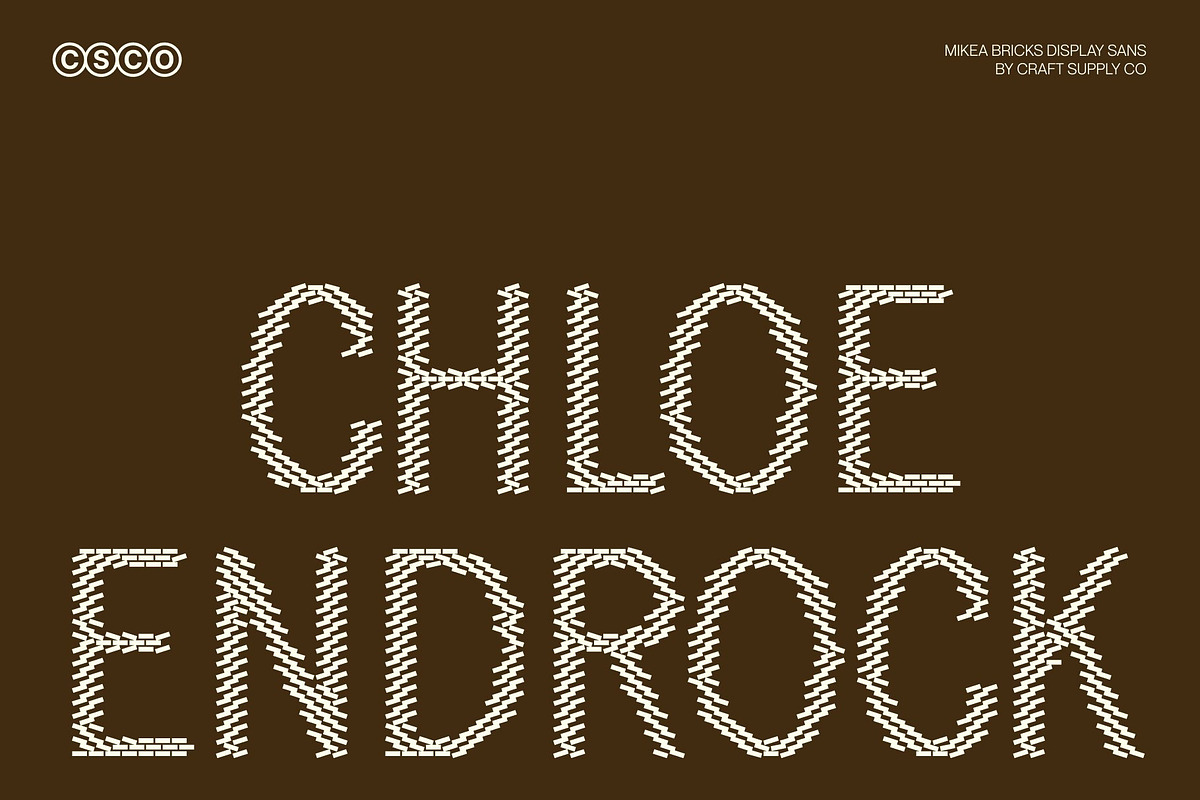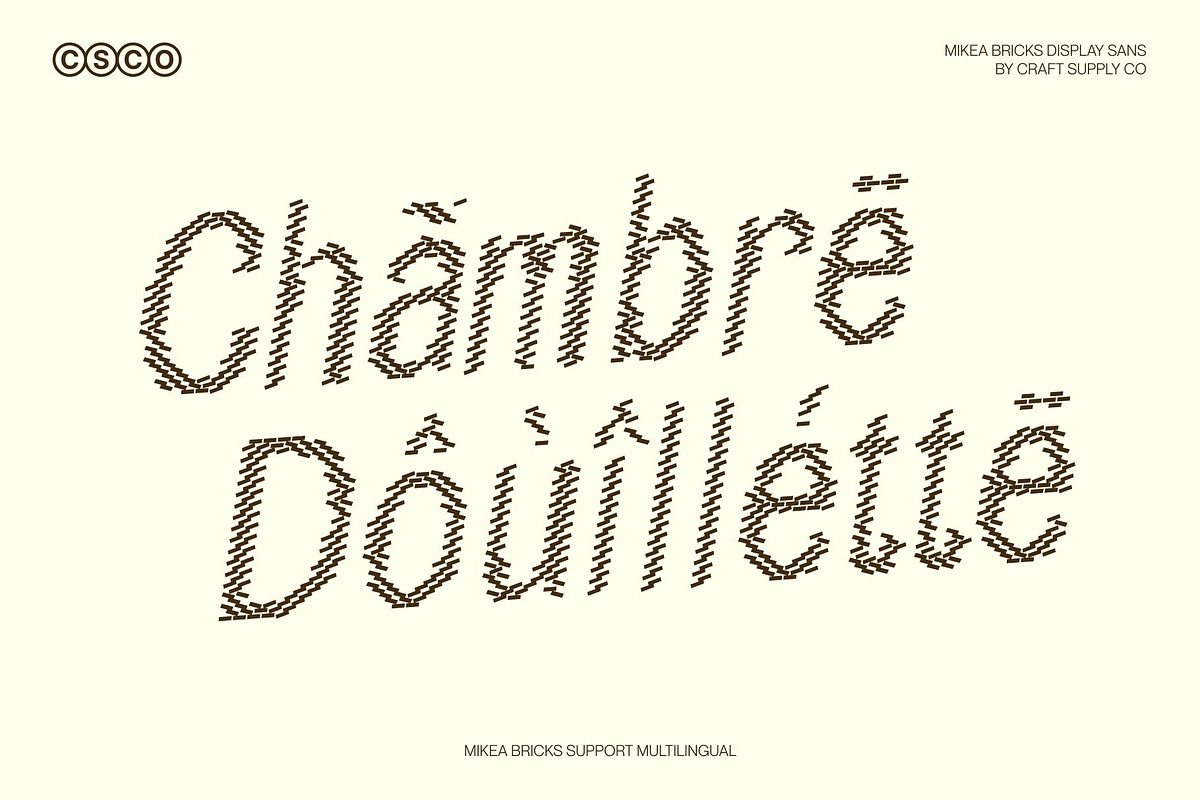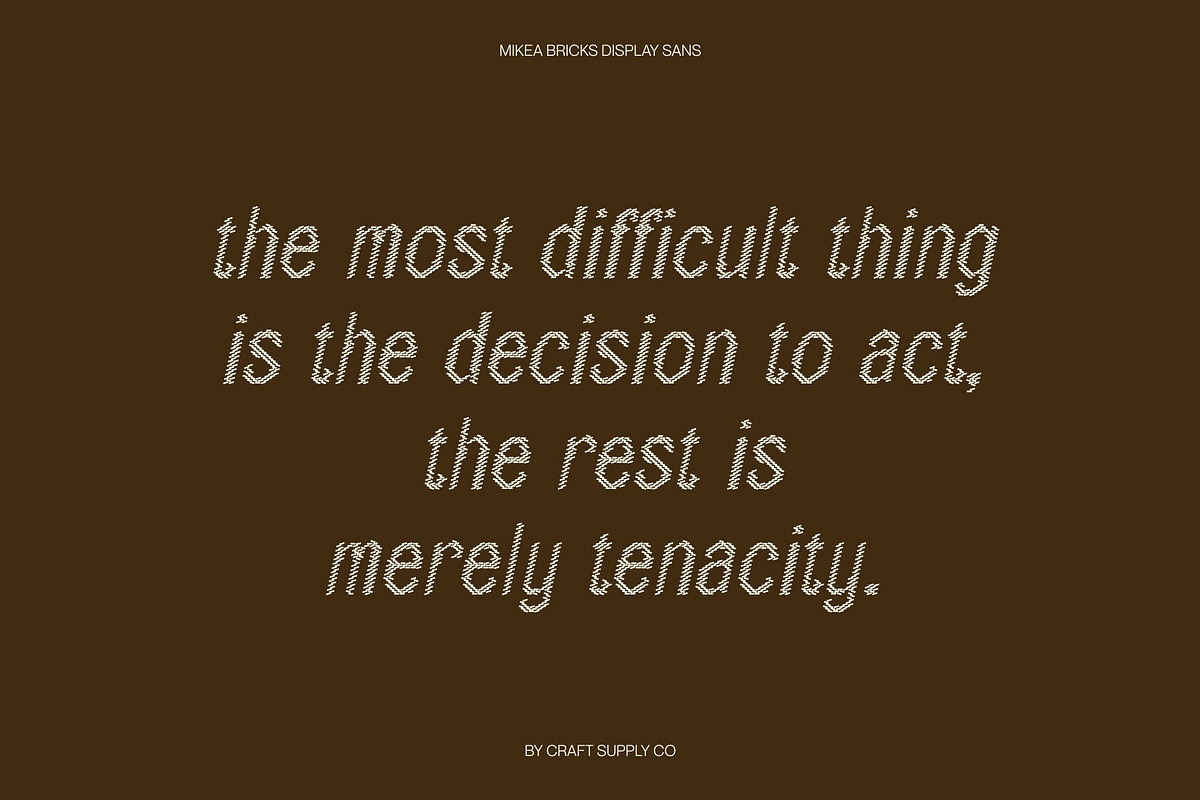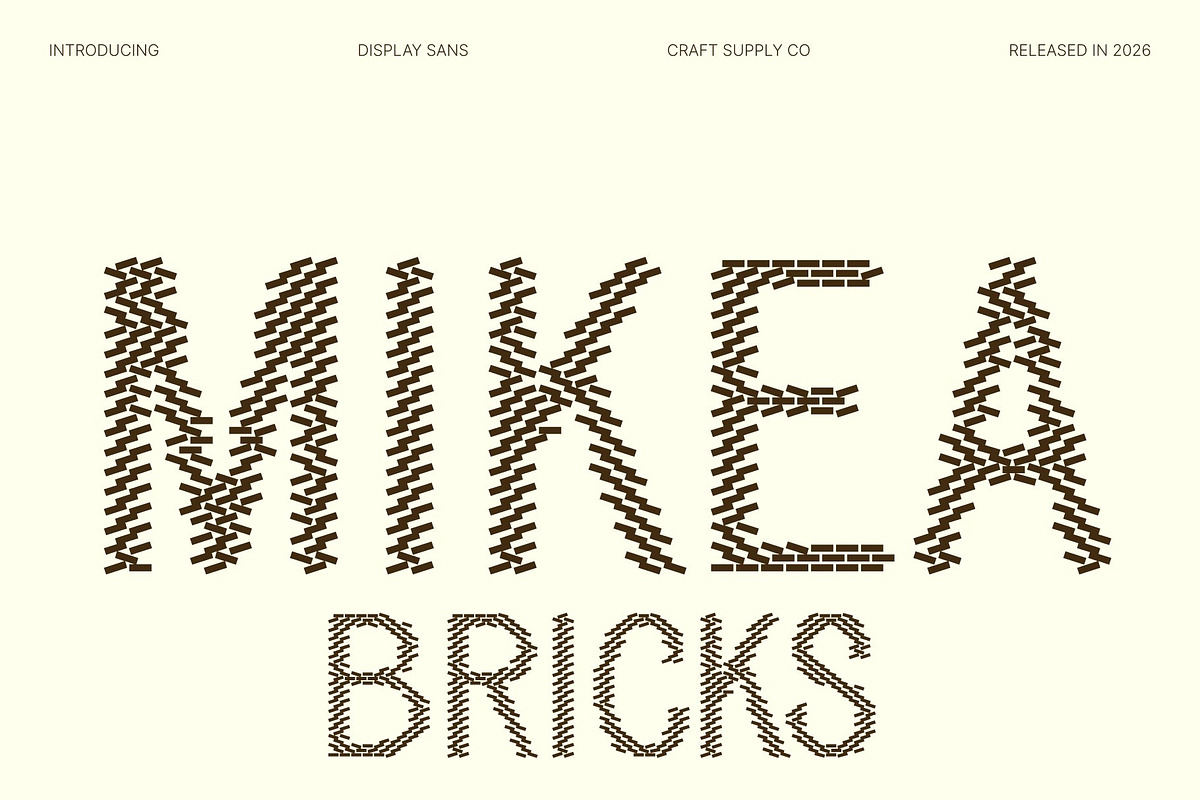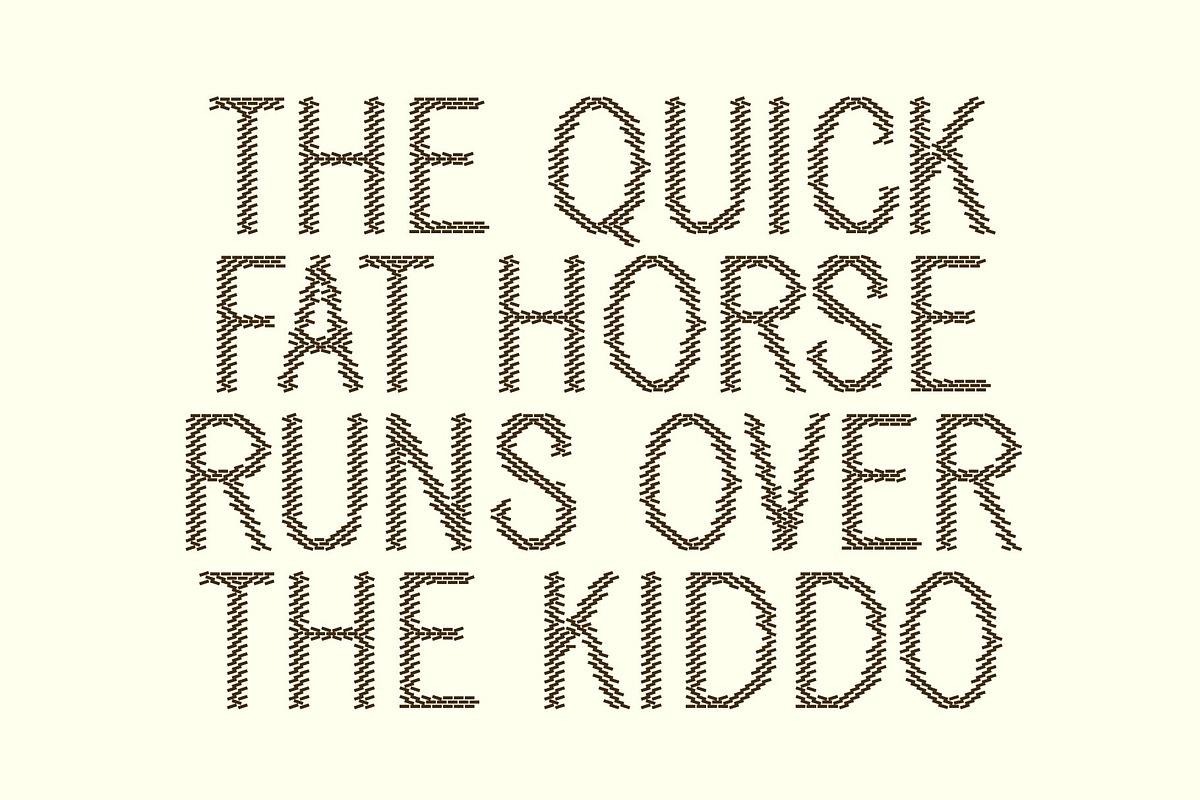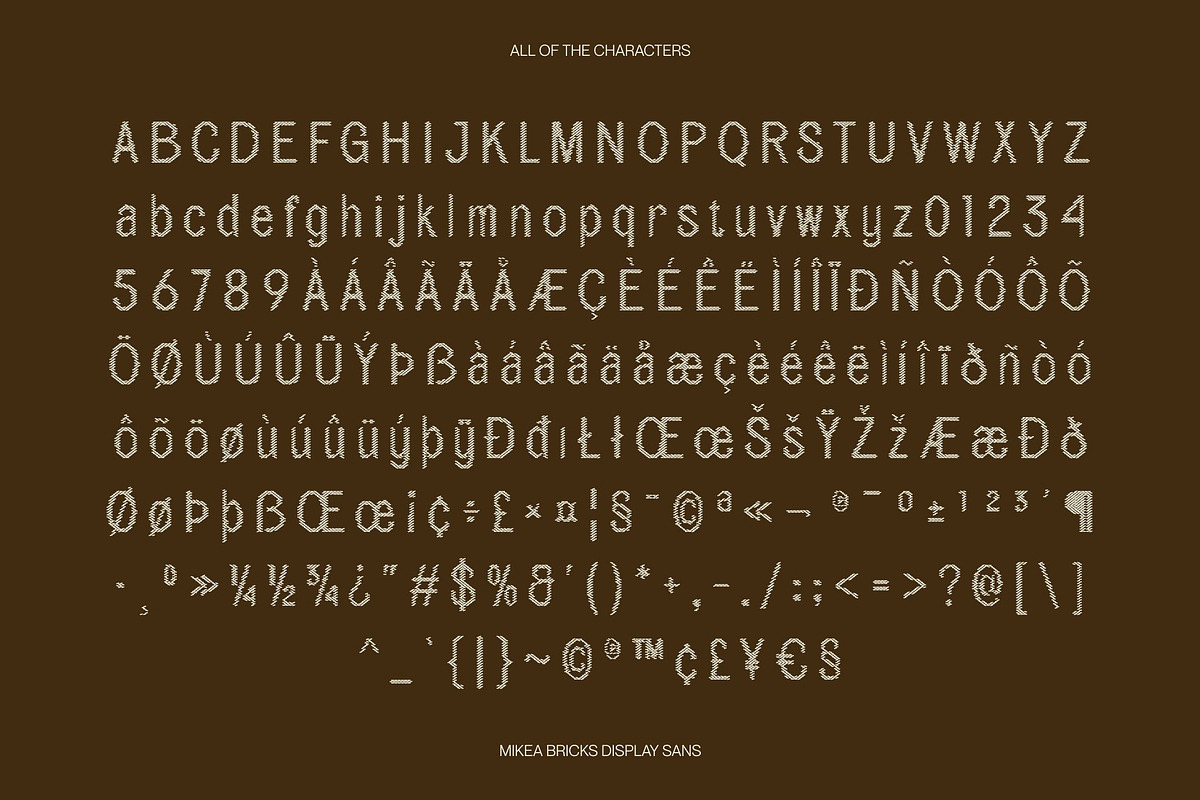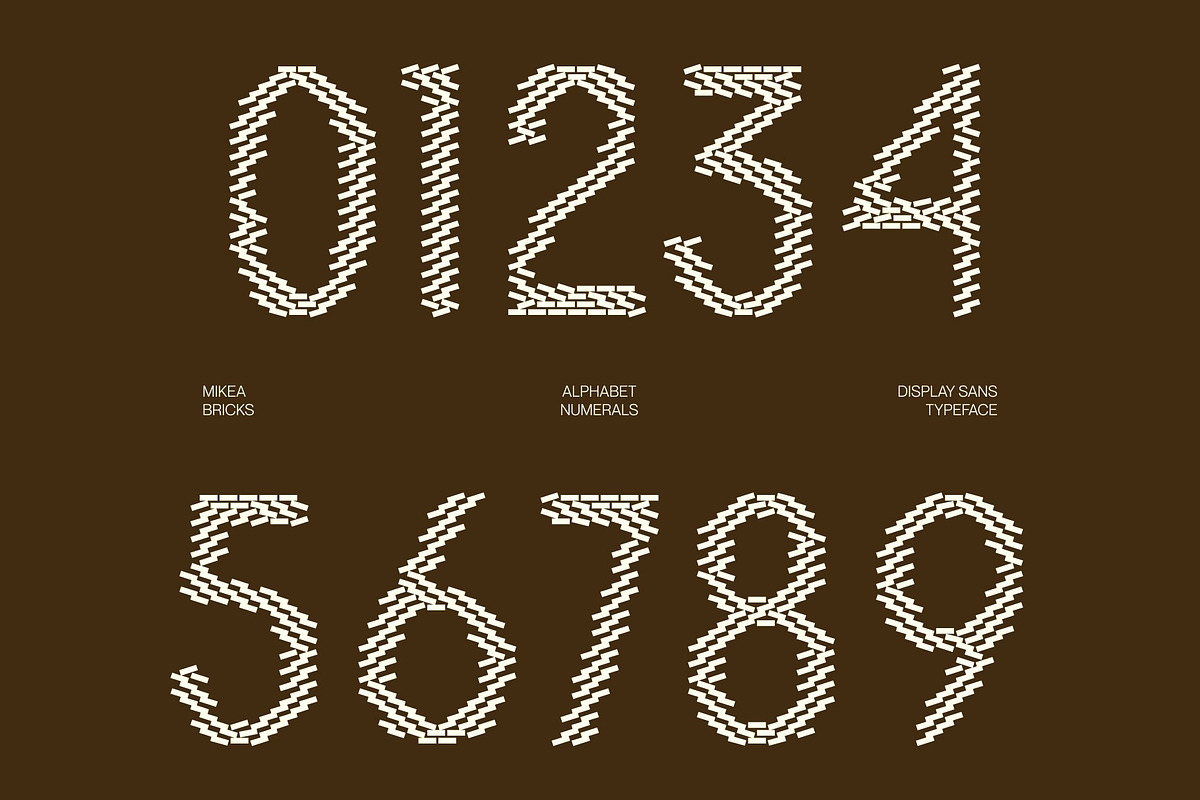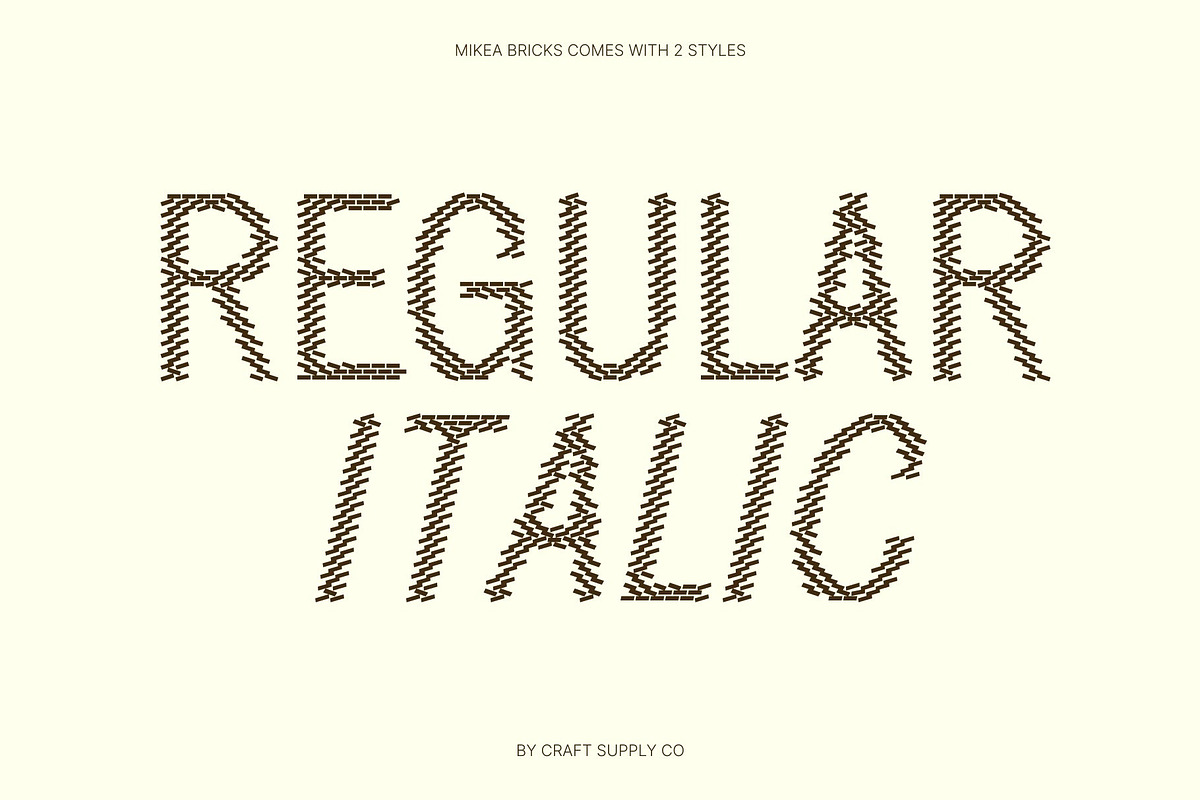
Mikea Bricks
Mikea Bricks – Modern Sans Serif Display Font: Where Luxury Elegance Meets Structured Brick Texture
Refined Contemporary Forms with Sophisticated Presence This is a modern sans serif display font crafted to convey luxury, elegance, exclusivity, and refined sophistication. Its clean contemporary lines and balanced proportions create a stylish visual identity that feels modern, professional, and highly polished. Every character radiates confidence and clarity, making the font perfect for premium display compositions and high-end branding.
Brick-Inspired Texture with Structured Artistic Character This font features decorative textures that make the letters appear as if constructed from brick elements. This structured detailing introduces a rugged architectural quality while preserving the font’s sleek and elegant sans serif foundation. The result is a unique blend of sophistication and tactile visual depth.
Modern Luxury with Urban Texture Blending minimalist sans serif precision with brick-inspired structure, this font delivers a typographic identity that feels luxurious, artistic, and visually distinctive. Its clean forms balanced with textured detailing create a contemporary atmosphere suitable for creative projects that seek both elegance and character.
Perfect for Branding, Editorials, and Creative Design This is ideal for branding, posters, editorials, packaging, fashion visuals, creative campaigns, and sophisticated promotional materials. Its brick-textured forms make it perfect for logos, magazine layouts, signage, merchandise, and visual identities that aim to convey a modern, refined, and memorable appearance.